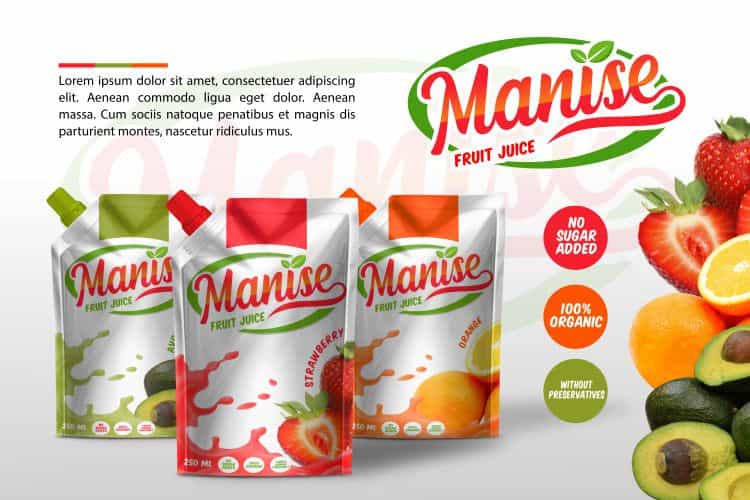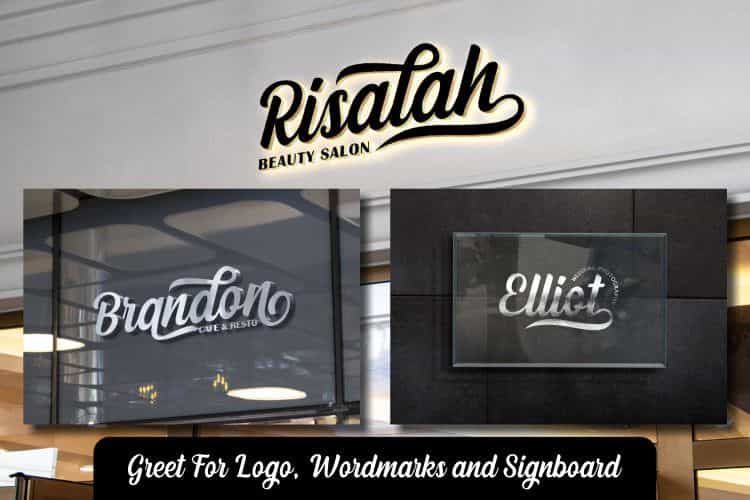
Dephiana Font – This is an elegant, bold, and script font, which was created and shared by NURF Designs. Dephiana is the Bold Elegant Font. The font has a number of different styles that can be used whenever you want. For you who needs a typeface for headline, logotype, apparel, invitation, branding, packaging, advertising etc. , they are the perfect choice.